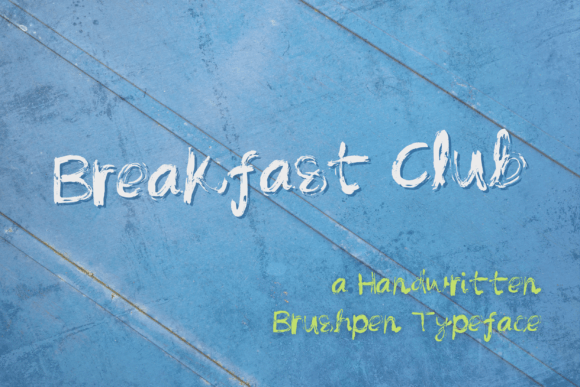
The Breakfast Club Font: A Brush with Perfection
I’ll never forget the design project that led me to discover the Breakfast Club font. I was working on a branding project for a trendy new cafe, and I needed a font that would capture the essence of their eclectic, artistic vibe. After hours of scrolling through font libraries and trying out different combinations, I stumbled upon this exquisite handwritten font that seemed to tick all the boxes. It was love at first sight – the flowing strokes, the rough edges, and the sense of raw energy that seemed to pulse through every letter. That font, of course, was the Breakfast Club font.
So, what makes the Breakfast Club font so special? Let’s dive into the good stuff first.
- ✨ Exquisite handmade feel: Each letter is carefully crafted with flowing strokes that evoke the beauty of calligraphy.
- ✅ Perfect for attention-grabbing designs: The eye-catching design makes it perfect for logos, headlines, and anything else that demands attention and style.
- ✨ Unique character: The rough edges give it a sense of raw energy and passion that sets it apart from more polished fonts.
Of course, no font is perfect, and the Breakfast Club font has a few quirks to be aware of:
- ⚠️ Limited use in body text: While it’s stunning for headlines and titles, the font’s unique character and rough edges may not be the best choice for longer blocks of text.
- 🤔 Some letters may require manual kerning: As with any handwritten font, you may need to adjust the kerning between certain letters to get the perfect flow.
The Story Behind the Breakfast Club Font
While the true origins of the Breakfast Club font are shrouded in mystery, it’s said to have been inspired by the classic films of John Hughes and the DIY aesthetic of 80s and 90s indie design. The font’s creator, a freelance designer with a passion for typography, wanted to capture the essence of a bygone era in a font that would be both nostalgic and timeless.
| Font Name | Breakfast Club Font |
| Author | The Tenacious Type Studio |
| Is the Breakfast Club font suitable for body text? | While it’s stunning for headlines and titles, the font’s unique character and rough edges may not be the best choice for longer blocks of text. |